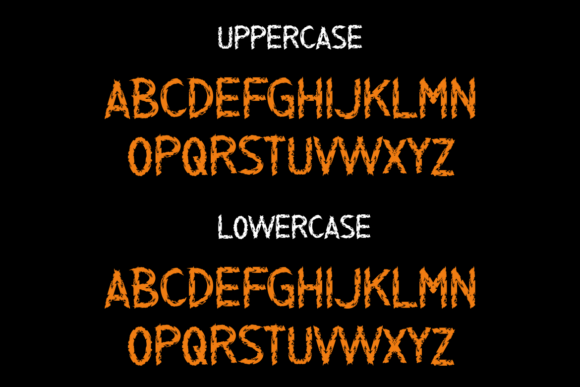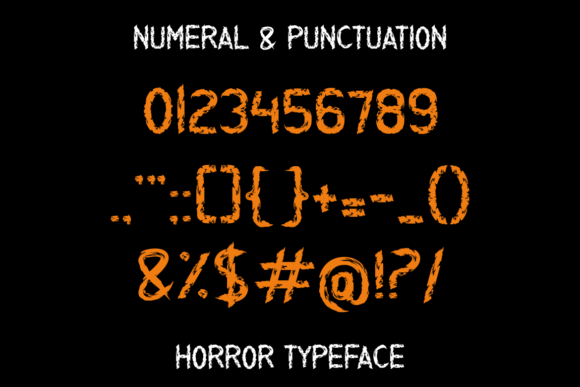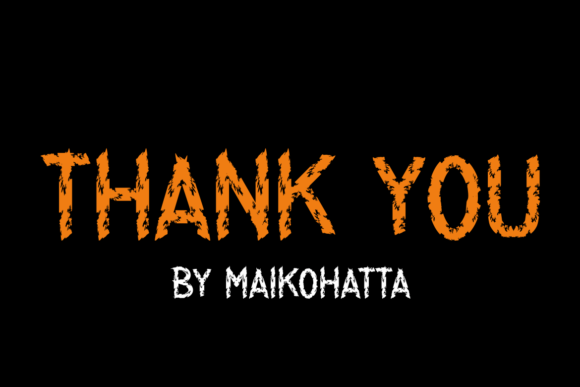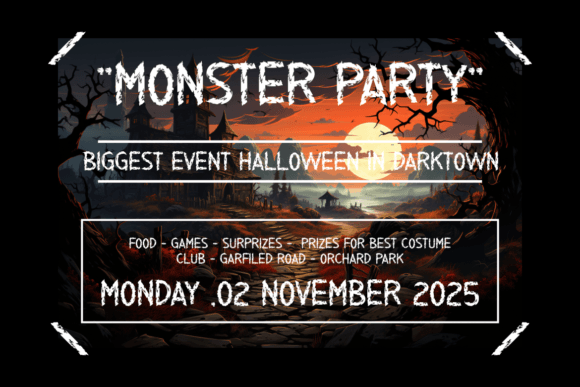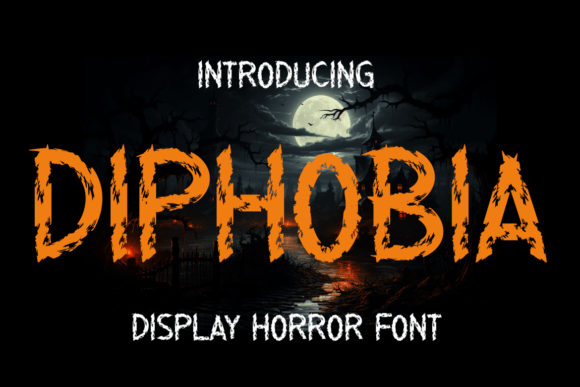
Diphobia Font: The Spookiest Display Font for Halloween Celebrations
As the spookiest time of the year approaches, designers and crafters are on the lookout for the perfect font to capture the eerie essence of Halloween. Look no further than Diphobia Font, a display font specifically designed to create a spooky, mysterious atmosphere and depict the spirit of Halloween celebrations.
What is Diphobia Font?
Diphobia Font is a unique and eye-catching display font that is perfect for creating a haunting ambiance in various Halloween-related media. Its distressed and rugged texture gives it a creepy, abandoned feel that’s sure to send shivers down the spines of those who dare to take a look.
Uses of Diphobia Font
This versatile font can be used in a variety of Halloween-related projects, including:
- Party invitations: Create spooky and intriguing invitations that will set the tone for a howling good time.
- Posters: Design eye-catching posters that will grab attention and draw people in.
- Merchandise designs: Add a touch of Halloween spirit to your merchandise, such as t-shirts, mugs, and trick-or-treat bags.
- Greeting cards: Create creepy and kooky greeting cards that will leave a lasting impression.
- Warning signs: Design ominous warning signs that will add to the spooky atmosphere.
- Website designs: Use Diphobia Font to create a Halloween-themed website that’s sure to leave visitors screaming for more.
Key Features of Diphobia Font
Diphobia Font has several key features that make it the perfect choice for Halloween-themed projects:
- Distressed texture: The font’s distressed texture gives it a worn, aged look that’s perfect for creating a spooky atmosphere.
- Rugged edges: The font’s rugged edges add to its creepy, abandoned feel.
- Unique lettering: Each letter has a unique and quirky design that’s sure to stand out.
- High-quality design: The font is designed with high-quality craftsmanship, ensuring that it will look great in any project.
Why Choose Diphobia Font?
There are many fonts available that claim to be perfect for Halloween, but Diphobia Font stands out from the rest. Here are just a few reasons why:
- Authentic Halloween feel: Diphobia Font has an authentic Halloween feel that’s hard to find in other fonts.
- Versatility: The font can be used in a variety of projects, from party invitations to website designs.
- High-quality design: The font is designed with high-quality craftsmanship, ensuring that it will look great in any project.
Tips for Using Diphobia Font
Here are a few tips for getting the most out of Diphobia Font:
- Use it sparingly: Diphobia Font is a bold font, so use it sparingly to create a bigger impact.
- Experiment with colors: Try using different colors to create a unique and eye-catching design.
- Pair it with other fonts: Pair Diphobia Font with other fonts to create a unique and interesting design.
- Have fun: Most importantly, have fun and get creative with Diphobia Font!